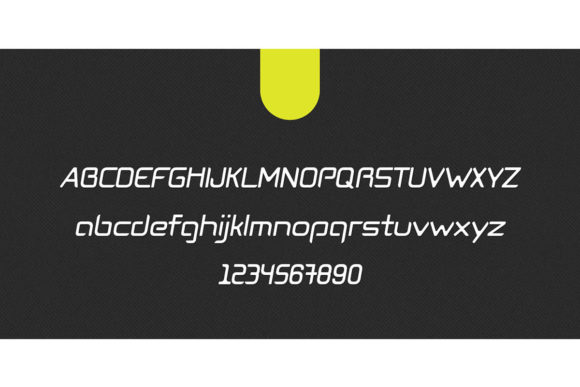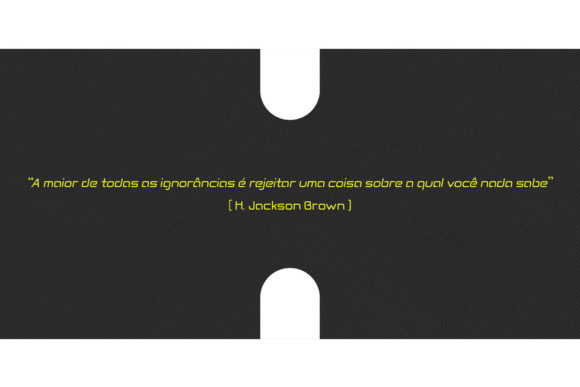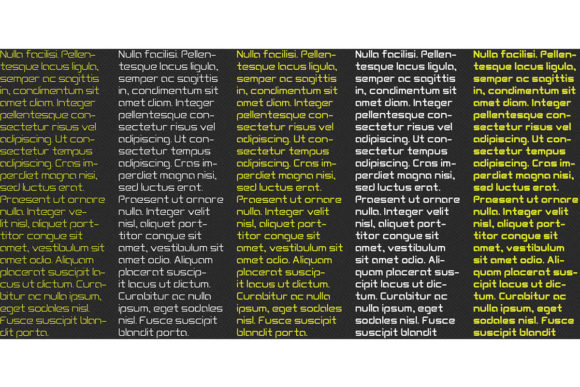
The Perfect Blend of Modernity and Sophistication: Introducing Cogtan Font
As designers, we’ve all been there – staring at a blank canvas, trying to bring our creative vision to life. The moment of truth arrives when we need to choose the perfect font to set the tone for our project. It’s a decision that can make or break the entire design. For those who crave a touch of modernity and sophistication, look no further than Cogtan Font.
This cool and geometric styled sans serif font is perfect for product packaging, branding projects, magazine covers, social media, and even wedding designs. What makes Cogtan Font truly valuable for designers is its versatility and ability to elevate any visual content. Whether you’re looking to add a touch of elegance or make a bold statement, Cogtan Font is sure to deliver.
Cogtan Font Key Features
- Font Family: Cogtan is a sans-serif font family designed for modern and minimalist designs. It is available in 6 font weights, ranging from Light to Bold.
- Character Set: Cogtan Font includes a comprehensive character set, supporting Latin, Cyrillic, and Greek alphabets, as well as a range of punctuation and special characters.
- Unique Characteristics: Cogtan Font features a unique blend of modern and industrial design elements, with clean lines, geometric shapes, and a subtle hint of mechanical feel.
Cogtan Font Review
As a designer, I’ve had the chance to work with various fonts, and Cogtan is one that caught my attention. Here’s my honest review.
- The Cogtan font has a unique blend of modern and industrial elements, making it perfect for tech and sci-fi themed projects.
- The font is highly legible, even at smaller font sizes, which is essential for digital interfaces and publications.
- The font’s bold and italic weights are well-designed, making it easy to create emphasis and add visual interest to text.
- The font’s regular weight can appear a bit too light for body text, especially in print materials.
- The font’s limited language support might be a concern for projects that require extensive internationalization.
Cogtan is a solid font that excels in specific niches, but its limitations hold it back from being a go-to choice for more general design projects. If you’re working on a tech or sci-fi themed project, Cogtan is definitely worth considering. However, for more universal projects, you might want to explore other options.
Tips for Getting the Most Out of Cogtan Font
Here are some tips to help you get the most out of the Cogtan font:
- Use it for titles and headings to add a touch of modernity.
- Pair it with a sans-serif font for body text to create a clean and balanced look.
The Cogtan font is perfect for:
- Modern branding and logos.
- Creative presentations and reports.
- Designing digital products and interfaces.